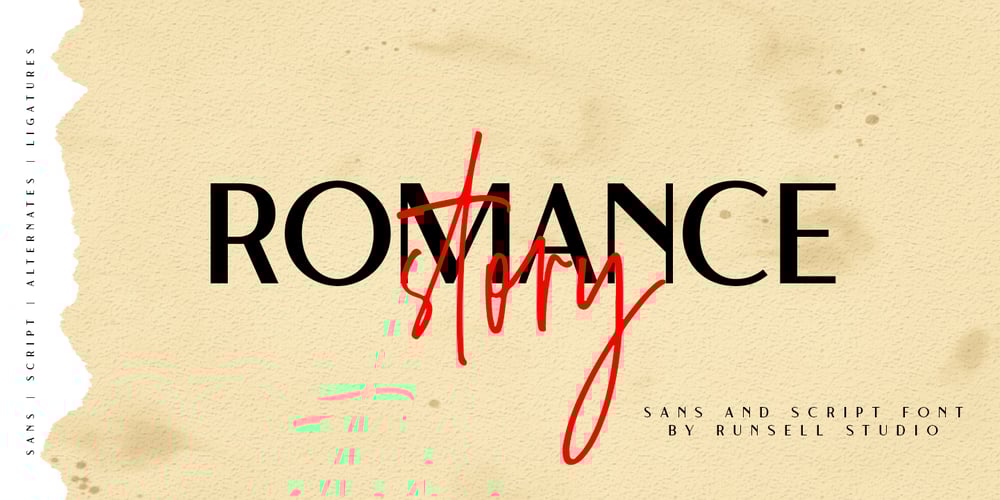
Romance Story
Romance Story font
Romance Story Font Family was designed by Fitriyawan and published by Runsell Type. Romance Story contains 3 styles and family package options. Romance Story is a classy handwriting font with a distinctive curve, inside with some interesting features that are perfect for an authentic-style project. Romance Story is perfectly suited to signature, stationery, logo, typography quotes, magazine or book cover, website header, clothing, branding, packaging design and more. A handwritten script font containing upper and lowercase characters, numerals and a large range of punctuation. Romance Story Includes: – Basic Character ( Uppercase and Lowercase, Numerals, Symbol and punctuation ) – Multilingual support – Ligatures – PUA Encoded – This font including alternate glyph. To access the alternate glyphs, you need a program that supports OpenType features such as Adobe Illustrator CS, Adobe Photoshop CC, Adobe Indesign and Corel Draw. How to get access alternate glyphs with designing software to open type fonts check this link : http: //adobe.ly/1m1fn4Y